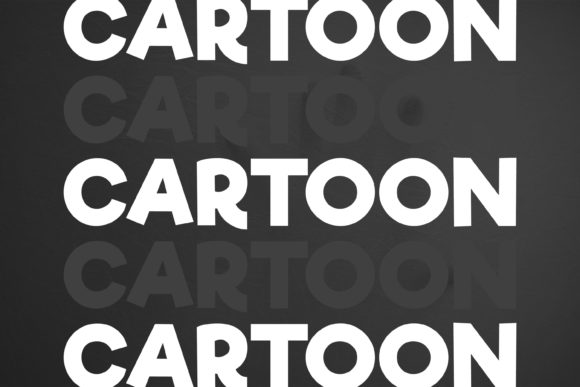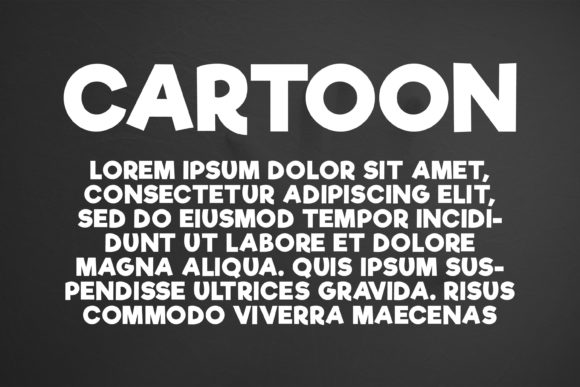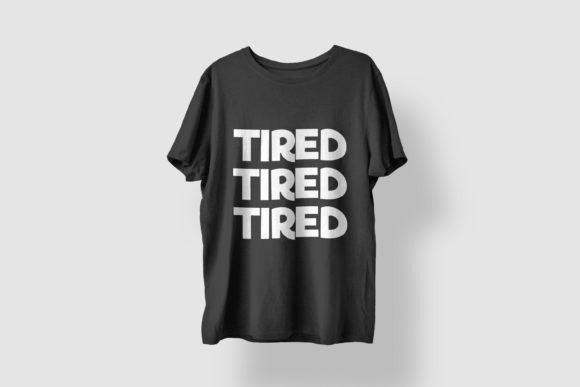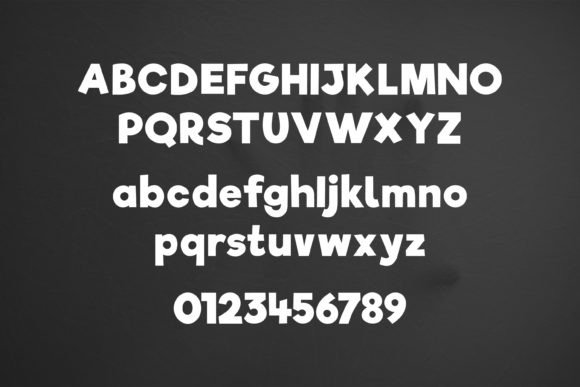
The Ultimate Design Game-Changer: Golok Font
I’ll never forget the time I was working on a project for a client who needed a bold, eye-catching font to make their brand stand out. I spent hours scouring the internet for the perfect one, but nothing seemed quite right. That was until I stumbled upon Golok Font. This cool, thick lettered, and bold display font has been a game-changer for my design work, and I’m excited to share its awesomeness with you! 😊
An Honest Review of Golok Font
- 💥 **Impactful and attention-grabbing**: Golok Font is perfect for making a statement with your designs.
- ✅ **Versatile**: It can be used for a wide range of projects, from posters and flyers to social media graphics and branding.
- 🎨 **Highly customizable**: With its range of OpenType features and glyphs, you can experiment with different styles to suit your design needs.
- 👍 **Easy to read**: Despite its boldness, Golok Font remains surprisingly legible, even at smaller sizes.
- ⚠️ **Limited use for body text**: Golok Font is best suited for headlines and titles, as it can be overwhelming for longer blocks of text.
- ⚠️ **May not be suitable for all design styles**: Its bold, edgy vibe might not fit with more minimalist or elegant design aesthetics.
- Take advantage of Golok Font’s OpenType features, such as stylistic alternates, to add some extra flair to your design.
The Designer Inspiration Behind Golok Font
While the true story behind Golok Font’s creation is unknown, it’s easy to imagine a designer who was tired of bland, generic fonts and wanted to create something bold and attention-grabbing. Perhaps they were inspired by graffiti art or urban landscapes, and wanted to bottle that energy into a font that would make designs pop.
| Font Name | Golok Font |
| Author | BeeType |
| What type of projects is Golok Font best suited for? | Golok Font is perfect for designs that require a bold, eye-catching font, such as posters, flyers, social media graphics, and branding. |
| Can I use Golok Font for body text? | While Golok Font is legible, it’s best suited for headlines and titles. For longer blocks of text, a more traditional font might be more suitable. |
| Is Golok Font available in different styles? | Yes, Golok Font comes with a range of OpenType features and glyphs, allowing you to experiment with different styles and variations. |
In conclusion, Golok Font is an amazing addition to any design library. Its bold, attention-grabbing style and versatility make it perfect for a wide range of projects. With its easy-to-use OpenType features and glyphs, you can experiment with different styles to suit your design needs. So why not give Golok Font a try and see how it can elevate your designs? 🚀